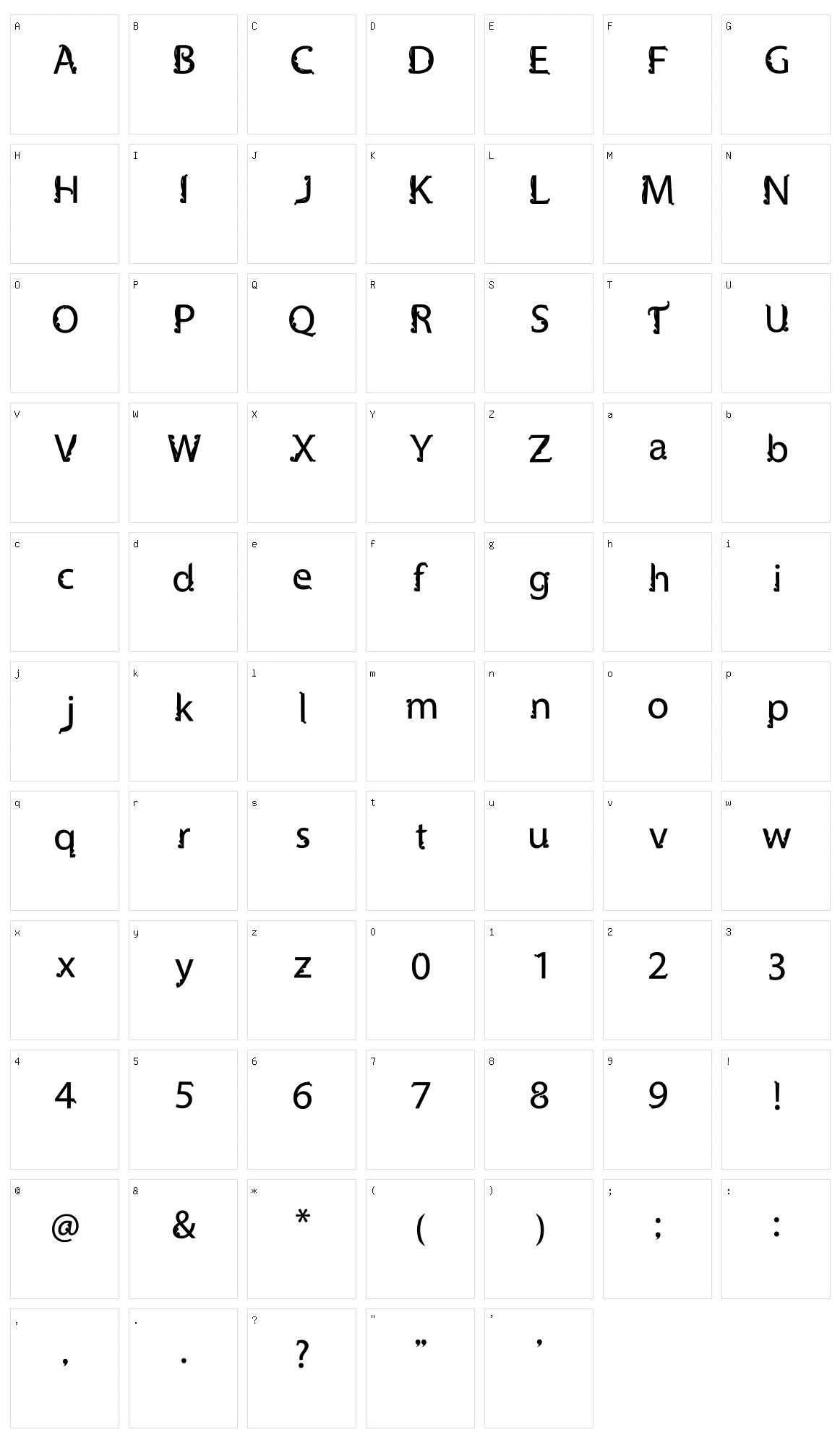
B L E D E G T Y P E F A C E
This font is inspired for "Lawang bledek" or lightning door in my village.
Bledeg type is a Nusantara typeface that Made for my college homework.